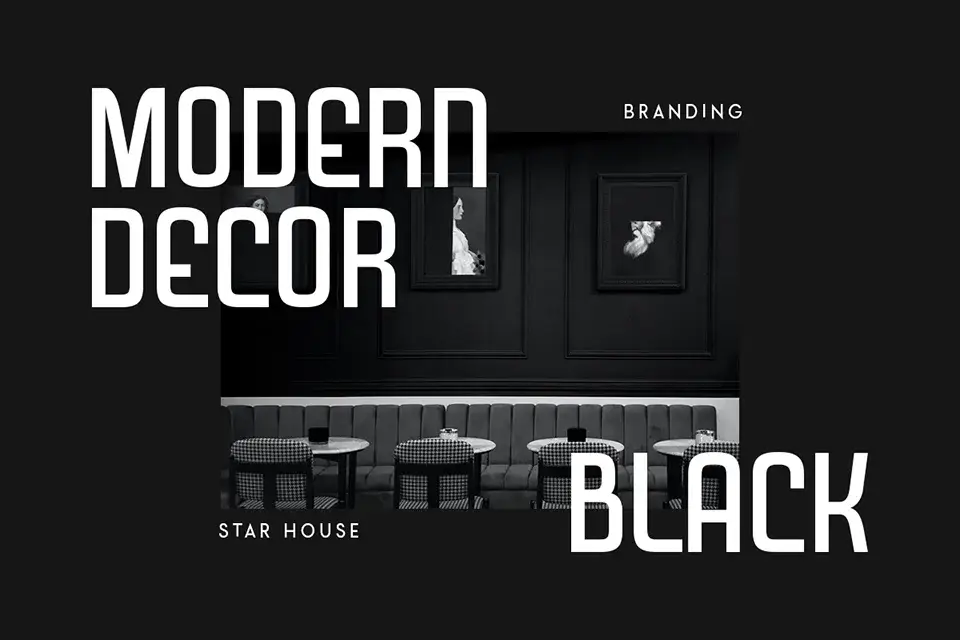
Safari Font
Safari Font is a bold and modern typeface characterized by its clean lines and simple design, making it an excellent choice for headlines and projects that aim to convey a strong visual message. Developed by Sensatype Studio, this font is available as a demo version, which is free for personal use only.
Features of Safari Font
- Style: Bold and modern
- Design: Clean lines, simple aesthetics
- Usage: Ideal for headlines and project titles